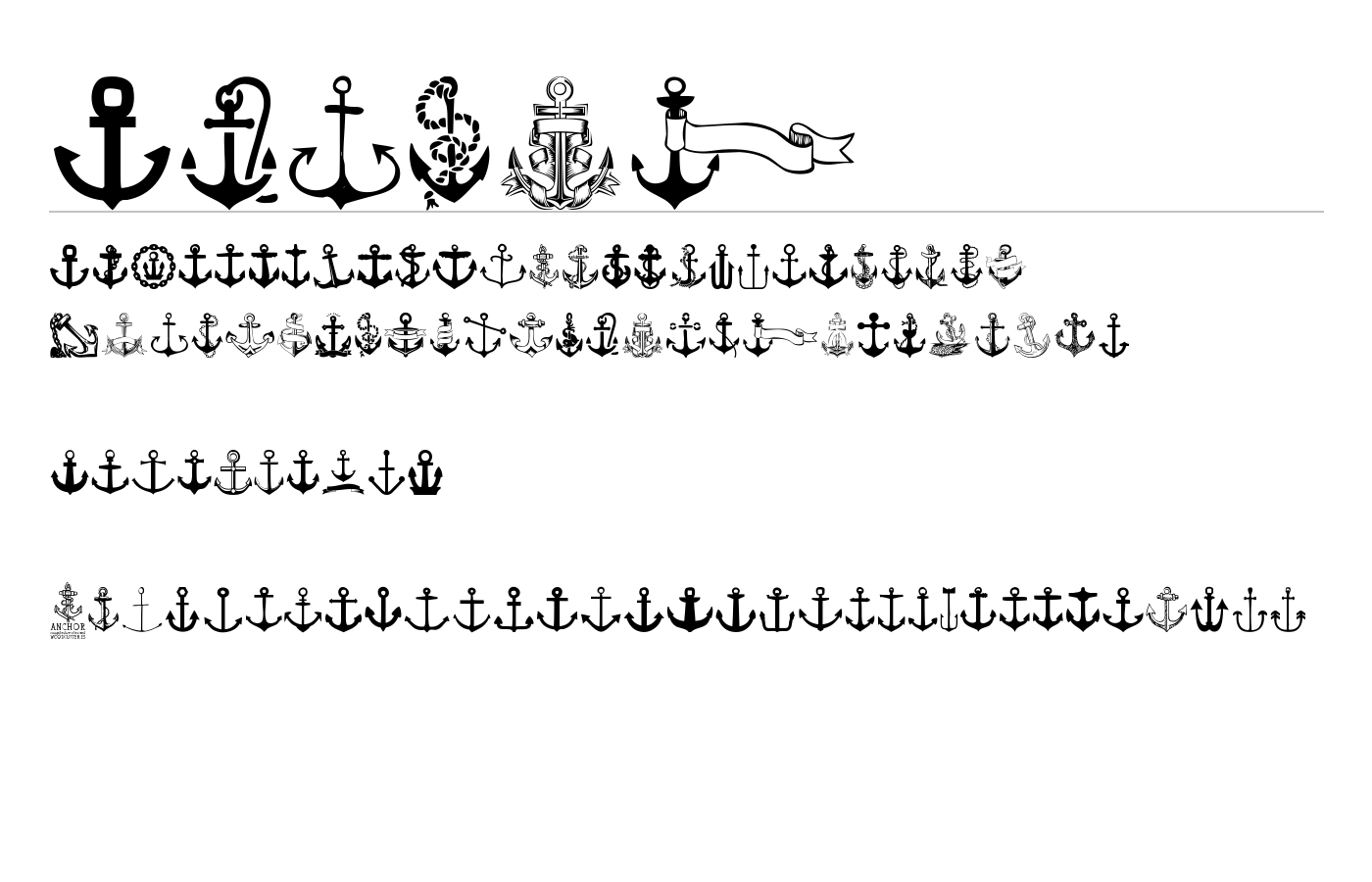
Anchor Font is a decorative symbol font featuring a diverse collection of anchor designs, ranging from simple silhouettes to intricately detailed nautical motifs. Its versatile and charming style makes it ideal for maritime-themed projects, branding, and decorative elements in posters or packaging where a classic oceanic vibe is desired. This font works best when used sparingly to add unique visual interest rather than for continuous text.
Anchor Font